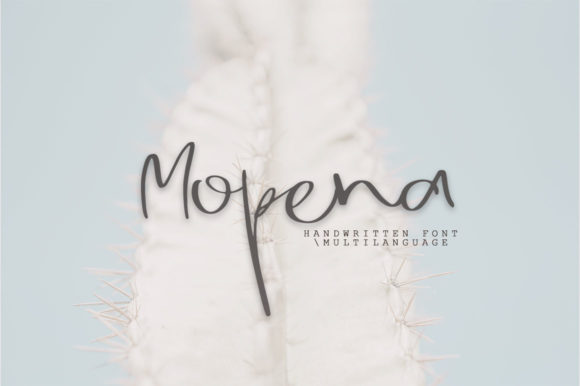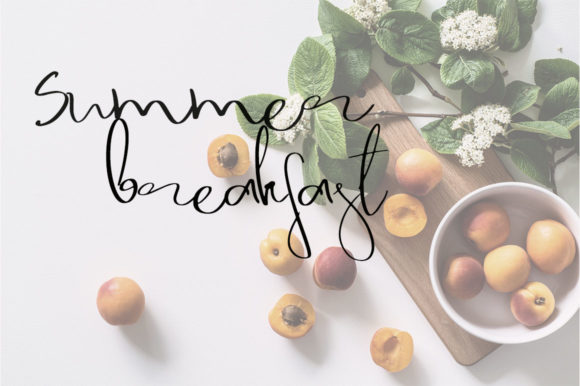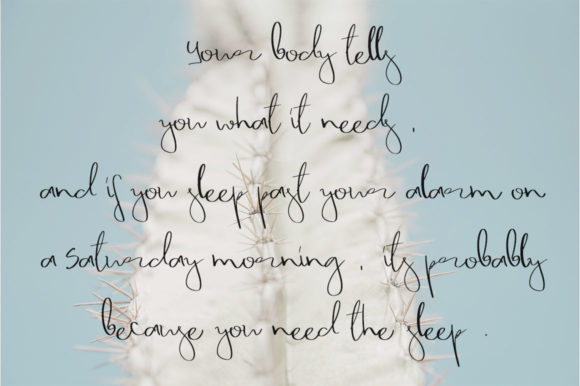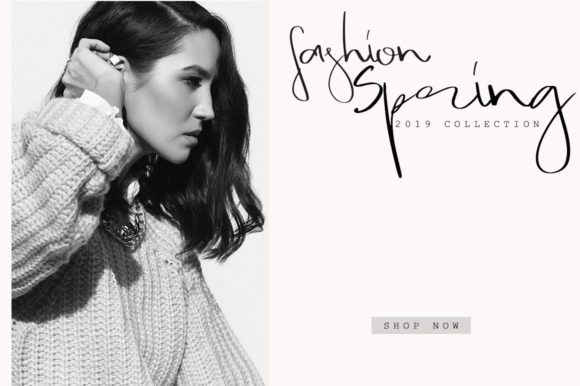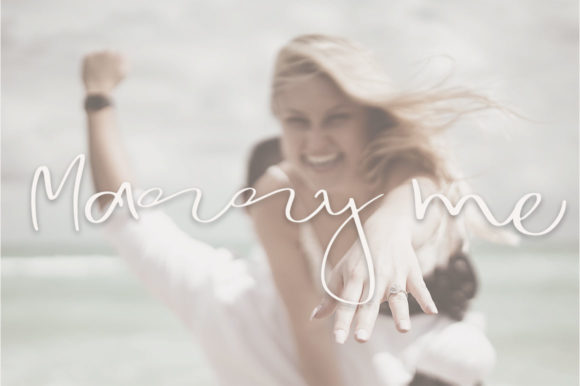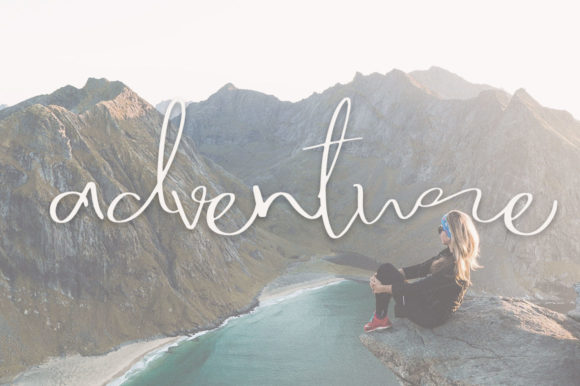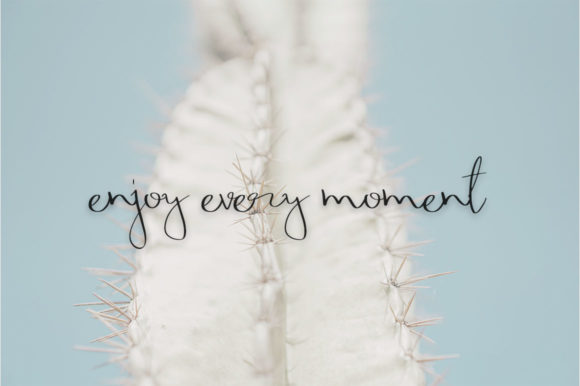
Mopena Font
About Mopena Font
The Mopena is a modern handwritten font. It was carefully crafted to give your design a beautiful look.
It can be used for logos, watermarks, quotes, blog headers, posters, and much more!